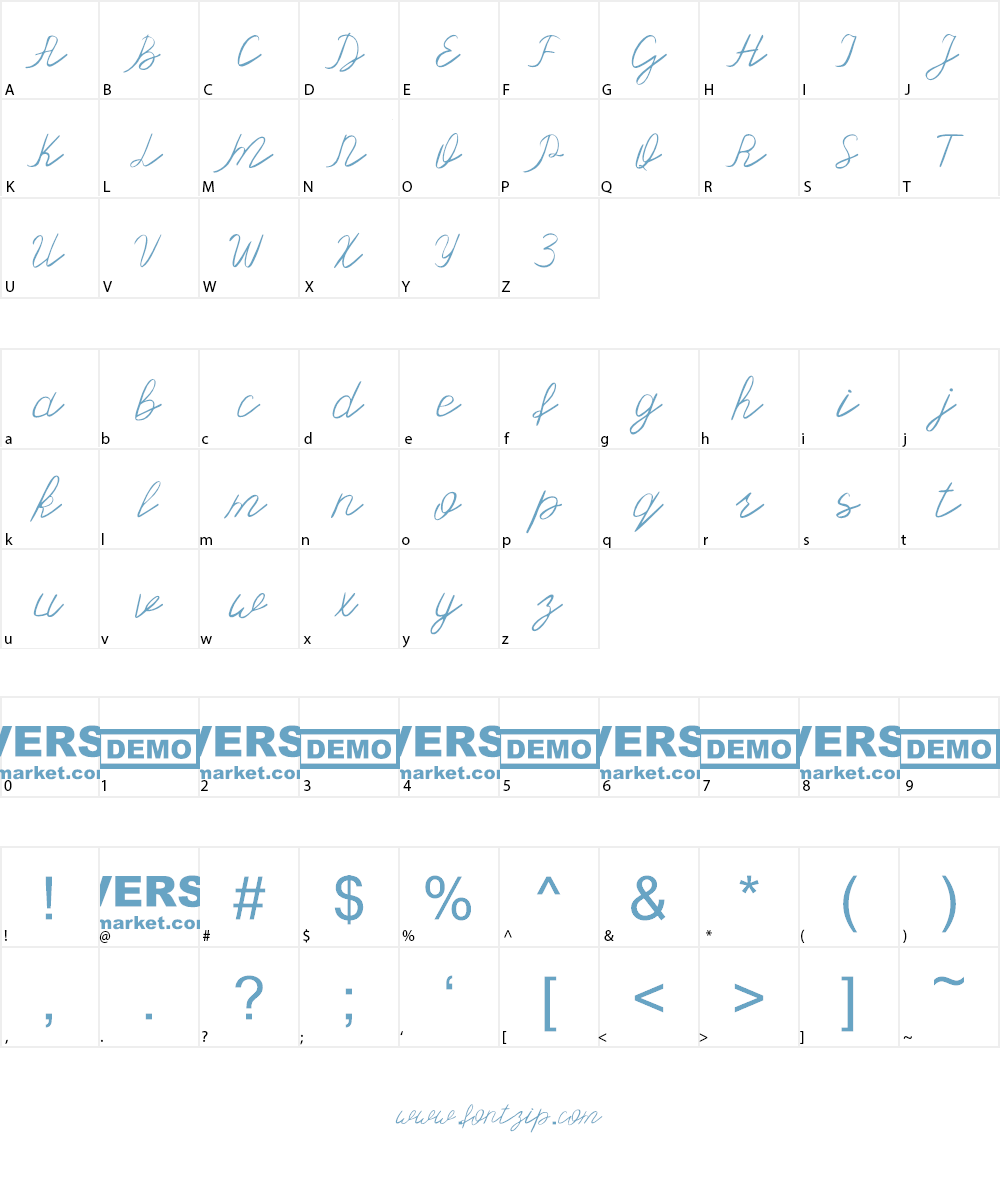
I'm glad to introduce you my new font Olster.
Olster will help you to decorate any of your projects in a nice attractive style. It's a perfect choice for your design needs!
Full version of Olster comes with uppercase, lowercase, standard punctuation, numerals and special letters for most of the European languages.